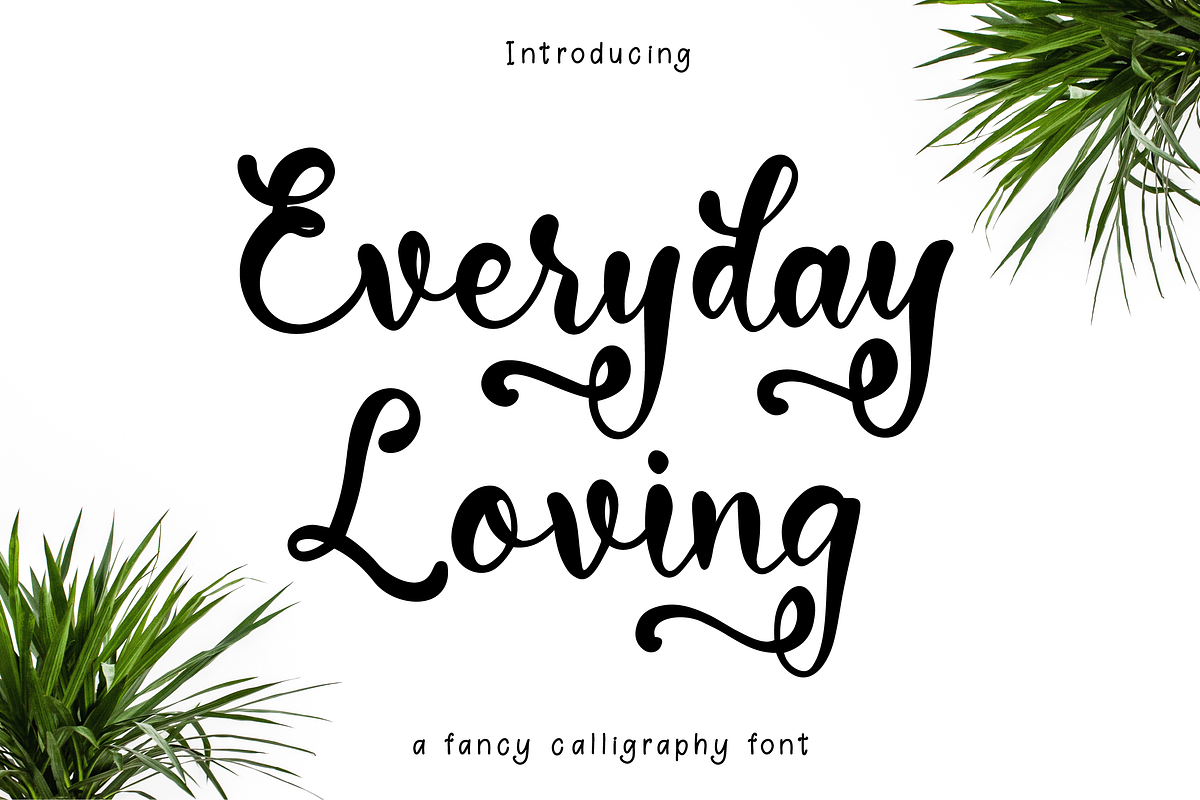
Everyday Loving Font Free Download is a sweet and elegant script typeface designed to bring a personal, romantic touch to your projects. With its smooth, flowing curves and handwritten charm, this font is perfect for invitations, greeting cards, branding, and social media graphics. Its graceful appearance makes it ideal for wedding designs, love-themed projects, and anything that requires a soft, inviting feel.
The natural flow of this font gives your designs a warm, authentic vibe, making it a great choice for projects where a personal, heartfelt message is key.